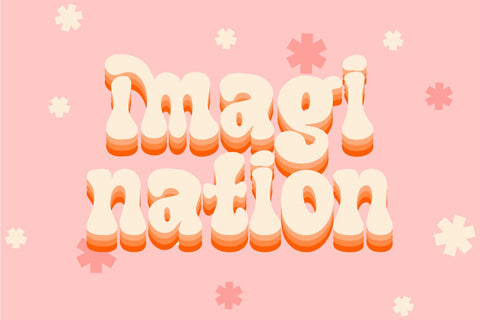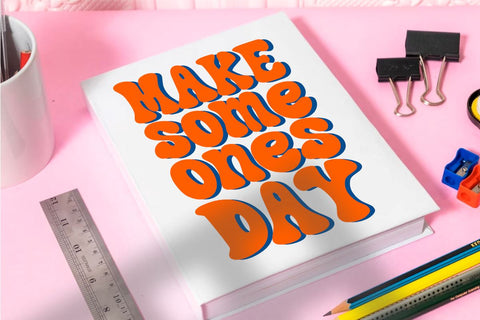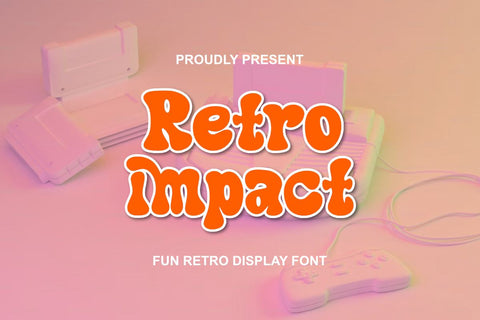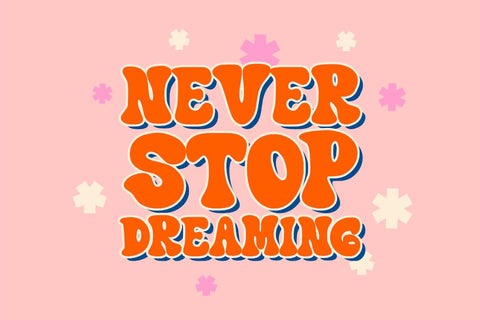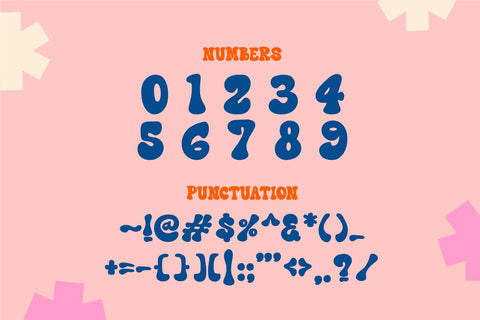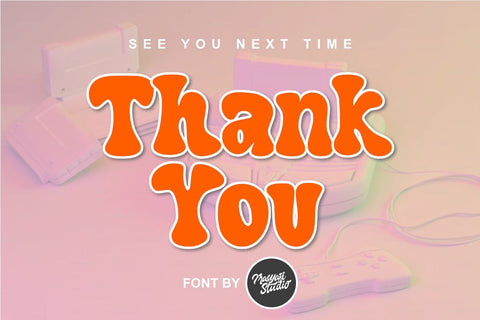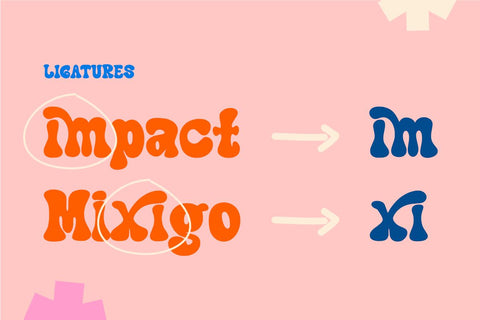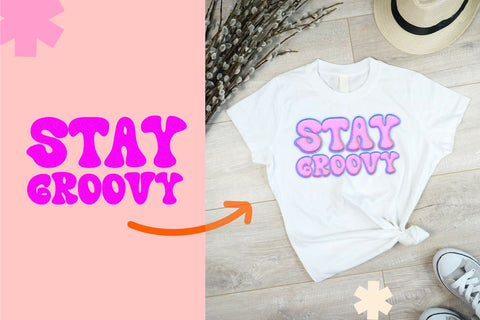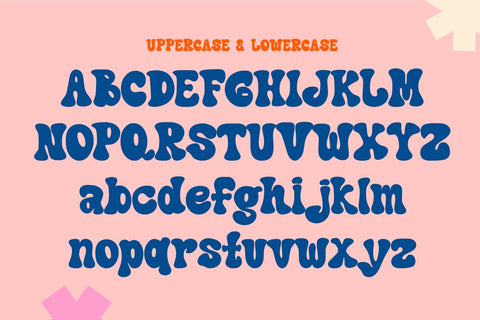
Retro Impact - Fun Retro Font
Retro Impact is a playful bold fun retro display font with a cool groovy style made by handwriting
This font is perfect for your creative projects, svg files, craft projects, graphic tees, logos, social media, stickers, procreate, and more!